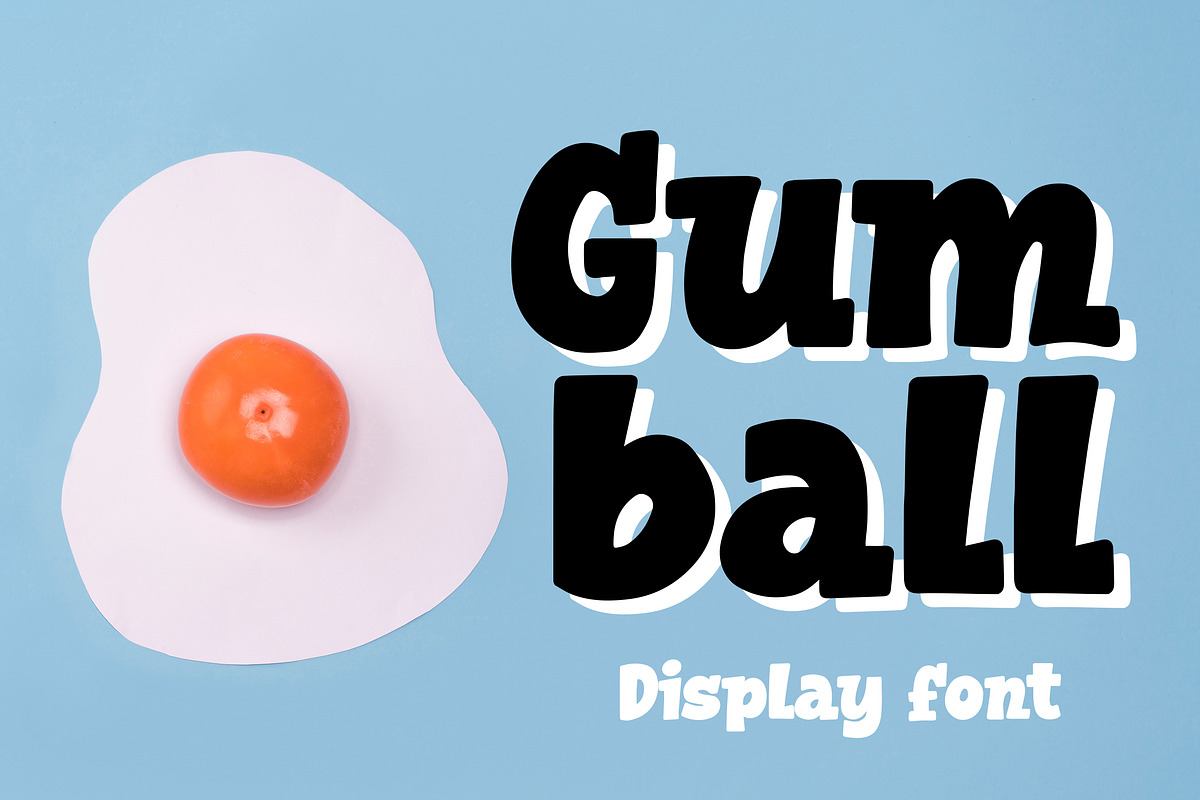
Gumball - Display Font Free Download is a bold and playful typeface designed to make your designs stand out. Perfect for posters, logos, advertisements, and fun branding, this font brings a cheerful, cartoonish vibe to any project.
With its rounded edges and dynamic letterforms, Gumball - Display Font Free Download adds a fun, energetic touch to your designs. Whether you’re working on children’s products, event flyers, or vibrant brand materials, Gumball provides an eye-catching and friendly look. Try it out in your next project to experience its lively personality—then upgrade to a commercial license when you're ready to go live and share your work with the world.